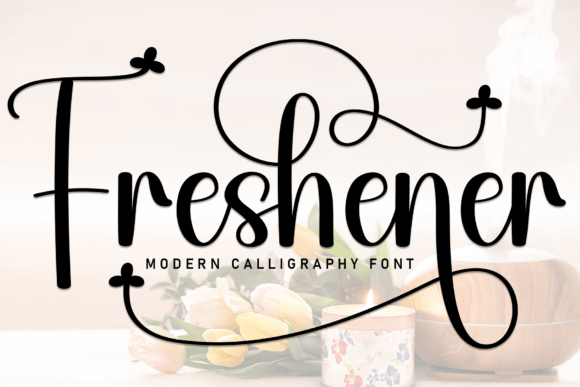
The Sweet Charm of Freshener Font: A Designer’s Delight
I’ll never forget the time I was working on a wedding invitation project, and my client asked for a font that was “fun, yet elegant.” I scoured the internet, tried out dozens of fonts, but nothing seemed quite right. That was until I stumbled upon Freshener Font. This sweet and friendly handwritten font won my heart, and I’ve been hooked ever since! 💕
An Honest Review of Freshener Font
- ✨ Freshener Font is incredibly versatile, making it perfect for a wide range of design projects, from wedding invitations to social media graphics.
- ✅ The font’s playful, cursive script is both cute and sophisticated, adding a touch of whimsy to any design.
- 💫 The font’s consistency and flow make it a joy to work with, even for large projects.
While Freshener Font is an amazing font, it’s not without its quirks. For example:
- ⚠️ Some of the letters may appear a bit too connected, which can make it tricky to use in certain design contexts.
- 🤔 The font could benefit from a few more stylistic alternates to give designers even more flexibility.
The Designer Inspiration Behind Freshener Font
Freshener Font was designed with the intention of creating a font that was both fun and elegant. The designer, inspired by the beauty of handwritten scripts, set out to create a font that would add a touch of personality to any design. With its sweet, cursive letters and playful feel, Freshener Font is the perfect result of this design vision.
Q: What type of designs is Freshener Font best suited for?
A: Freshener Font is perfect for designs that require a touch of whimsy and personality, such as wedding invitations, cards, and social media graphics.